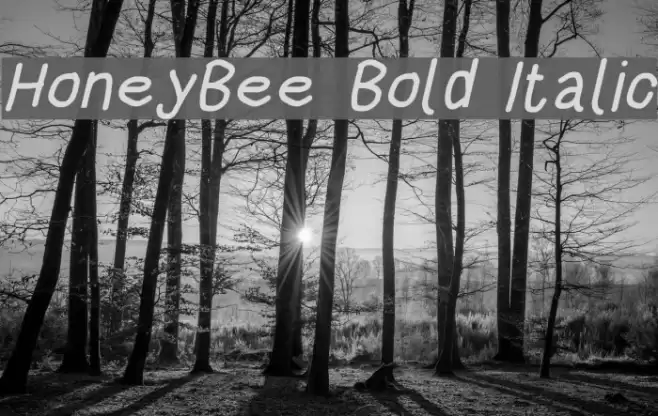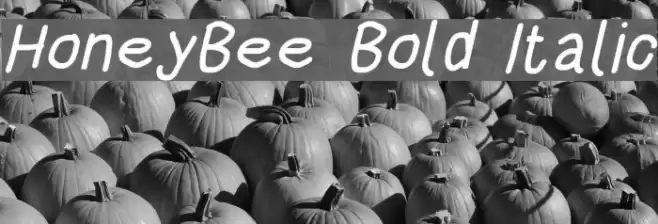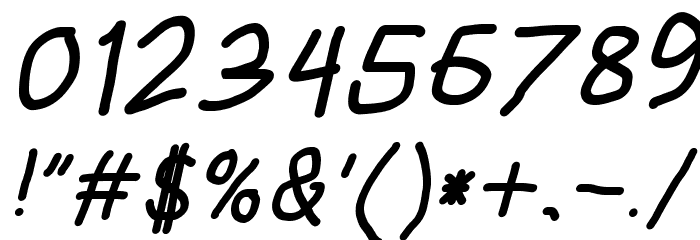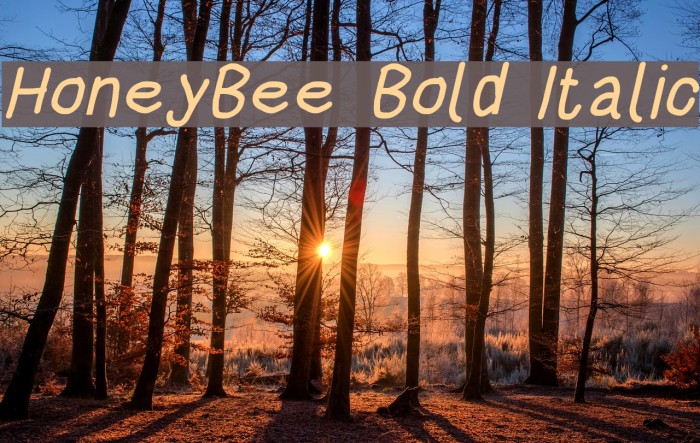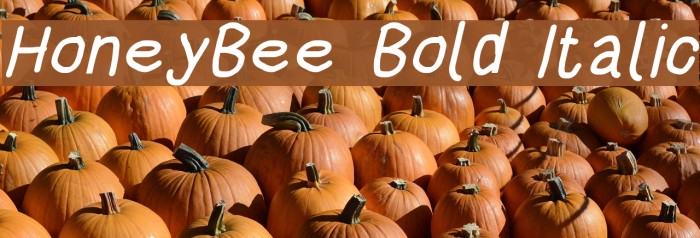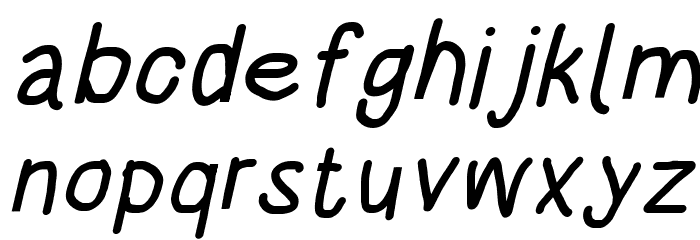
HoneyBee Bold Italic Font
HoneyBee Bold Italic Description
This font exhibits a playful and energetic style, characterized by its bold and italicized form. The letters have a handwritten appearance, with a slight slant that adds a dynamic feel. The strokes are consistent in thickness, providing a uniform look across all characters. The uppercase and lowercase letters are well-proportioned, maintaining readability while adding a touch of whimsy. Numbers and special characters follow the same stylistic cues, ensuring a cohesive design throughout. This font is ideal for projects that require a personal and approachable touch, such as invitations, greeting cards, or playful branding.
A bold, italicized handwritten font with a playful and dynamic style from Uncategorized fonts.
- Proposed Projects: Ideal for invitations, greeting cards, playful branding, and creative projects.
- Overall Style: Playful
- Use Case: Headlines, Logos, Invitations